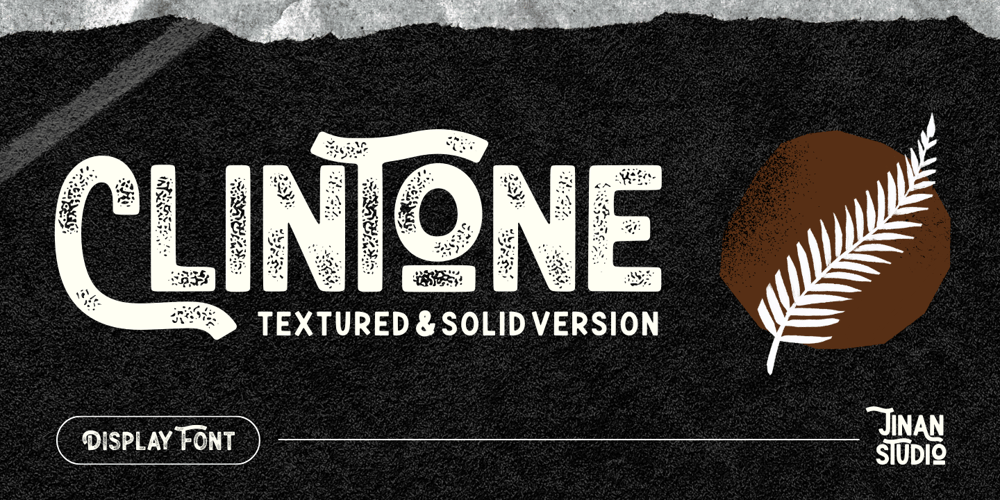
Clintone
Clintone font
Clintone Font Family was designed by Ainun Jinan and published by Jinan Studio. Clintone contains 2 styles and family package options. Hello World,Introducing, Clintone! a display font with 2 style (textured & solid) suitable for your design project needs, such as; logotype, branding, packaging, social media posts, quotes, overlays on images, tagline logos, posters, print needs, website banners, and more.Features A set of uppercase and lowercase glyphs Number, symbol, and punctuation Multilingual Support Alternates Thank you a million times for downloading and using this font for your projects. Enjoy this font and happy creating!Jinan Studio